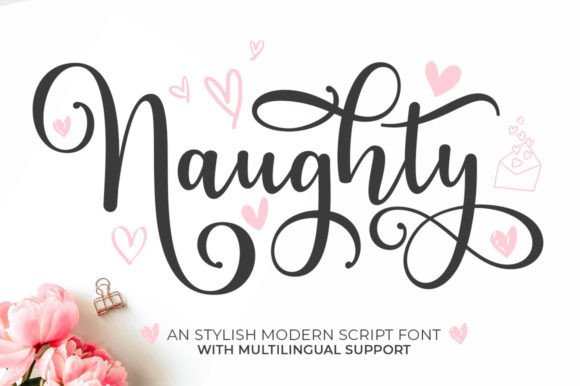
Behold, Naughty Font - an enchanting script font that will dance upon your designs like snowflakes on a winter's night. Its delicate curves and swirling strokes evoke a sense of playfulness and joy, making it a perfect choice for Christmas cards and other festive creations. Like a skilled ballerina, Naughty Font pirouettes across the page, capturing the magic of the holiday season with every graceful line.
With Naughty Font, your words will sing with a touch of whimsy and merriment. Imagine your Christmas cards, adorned with this elegant script, becoming cherished keepsakes that warm hearts and spread smiles. Let Naughty Font guide your hand as you craft invitations to holiday gatherings, evoking the warmth of a crackling fireplace and the scent of gingerbread cookies.
This versatile font is not limited to the festive season alone. Its charming personality shines through in various creative projects, from whimsical logos to enchanting posters. Unleash your imagination and let Naughty Font add a sprinkle of delight to your designs.
**Key features of Naughty Font:**
* Exquisite handwritten style
* Classy calligraphic influences
* Contemporary and fresh feel
* Perfect for Christmas cards, invitations, logos, and posters
* Versatile and suitable for various creative projects
Step into a world of enchantment with Naughty Font, where your designs will come alive with the spirit of Christmas and beyond. Let this captivating script font be your creative companion, bringing joy and wonder to all who behold it.